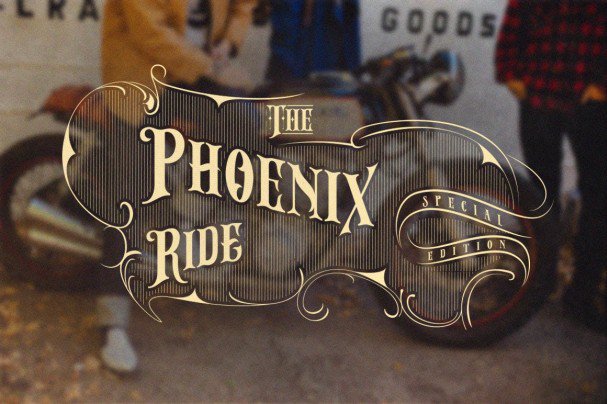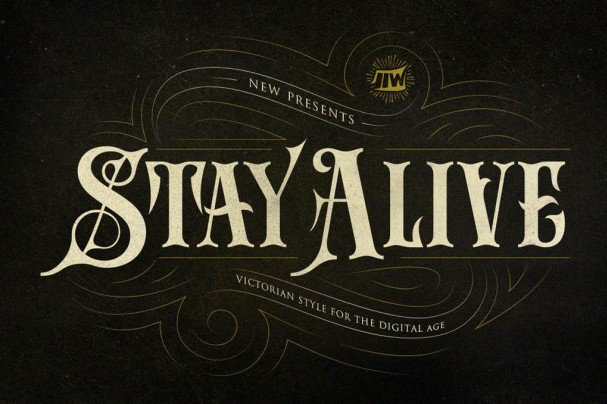
Stay Alive Font
Here is the stay alive font that is quite famous for its copy and pastes function. This typeface is quite similar to the victorian and groovy font. A well-known content material cloth author took the all turning into for this lovely typeface. And he plays it for them receives the content material scenario to seem fashionable.
He has were given the concept of in case you want to enhance issued due to the fact. On this way, it, in reality, energy at the styles of t-shirts net pages. Stay Alive Font Free Now that you could moreover be known as it the new version of the sesame bakersville font. On the equal time as you take into account that brief, it has acquired all of the not unusual elements with a selected plant.
And a few others are taking it as an idea for making new typefaces.